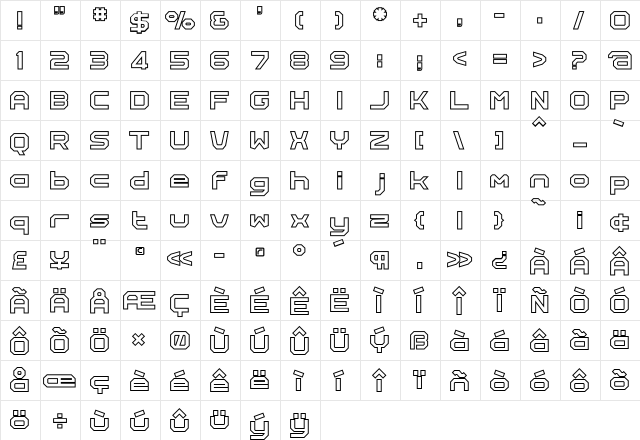
Rally Regular Font Preview
Rally Regular
Design Context for Rally Typeface
Rally takes a measured approach to typography — its balanced proportions and neutral character make it a reliable workhorse for both digital and print work.